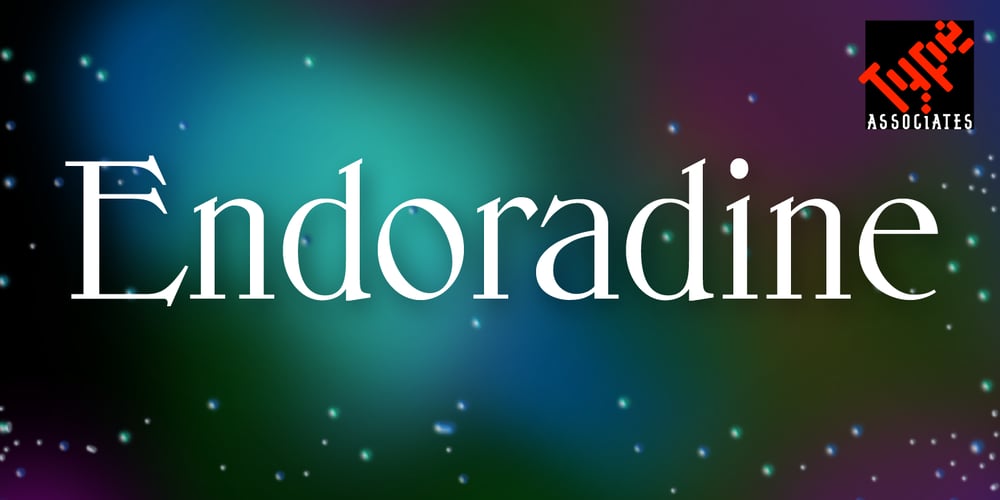
Endoradine Font Family was designed by published by Type Associates. Endoradine contains 1 styles and family package options. Endoradine conjures up images of lace and bodices, fine engraving and delicate filigree, perhaps ornaments and initials, its origin unknown.